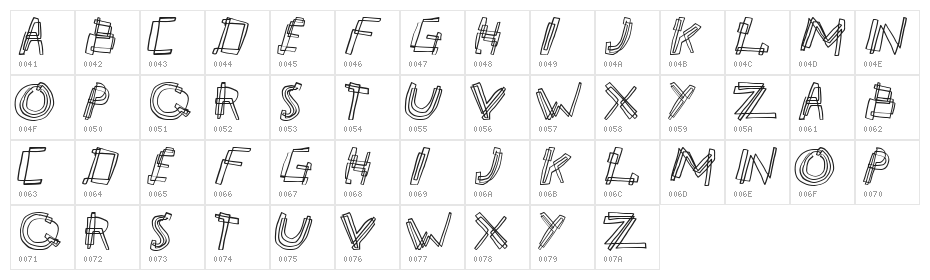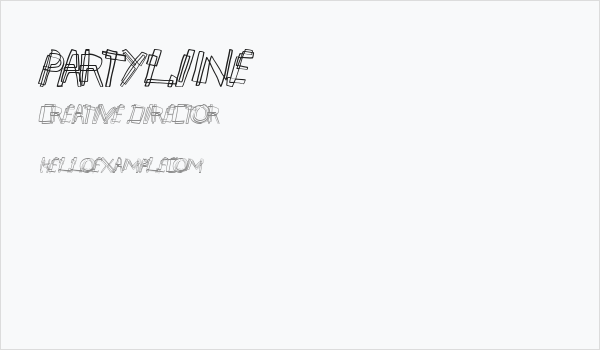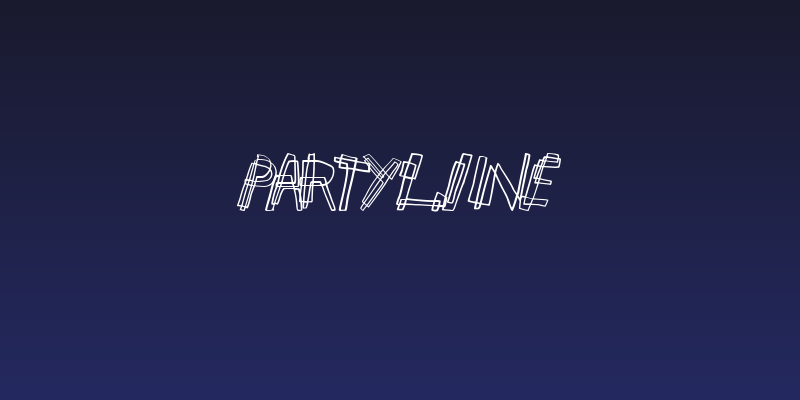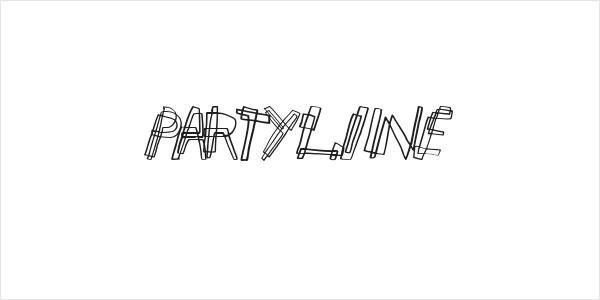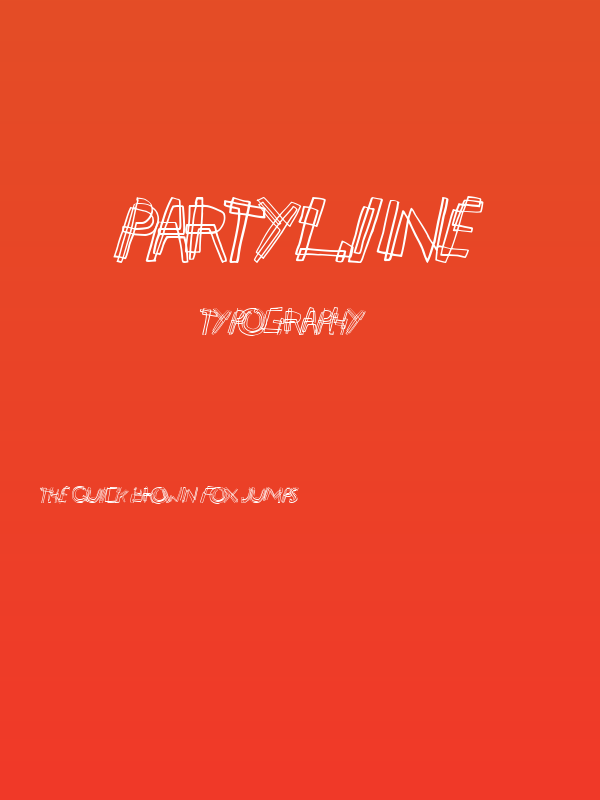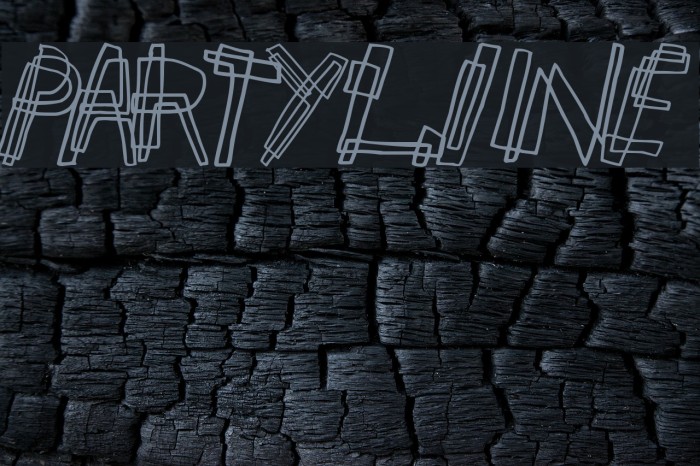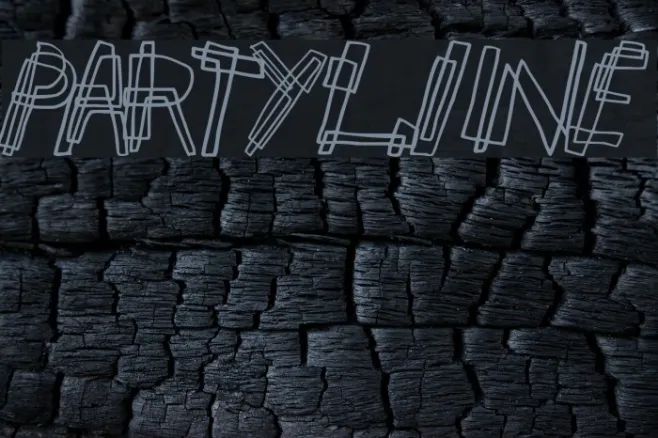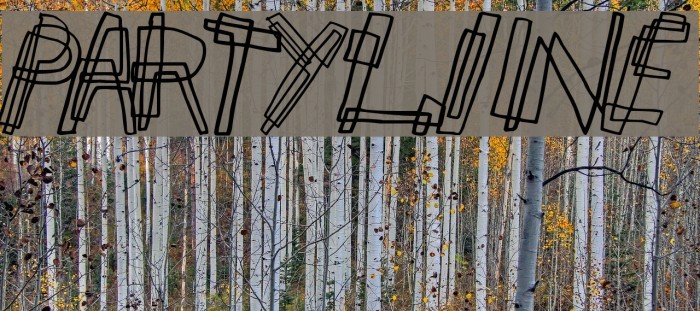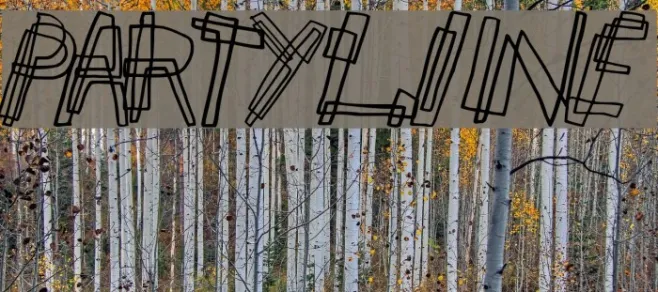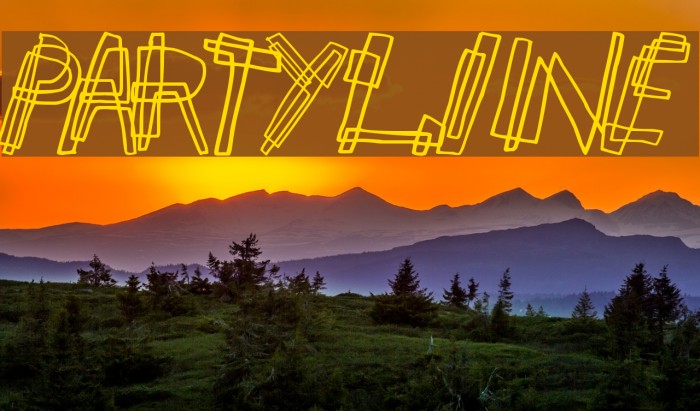
partyline Font
partyline Description
This font features a unique, layered design with a playful and dynamic appearance. Each character is constructed with overlapping lines, creating a sense of depth and movement. The letters are uppercase, with a geometric and slightly irregular form that adds to its whimsical charm. The font's style is reminiscent of a hand-drawn sketch, giving it a casual and artistic feel. The overlapping lines create a shadow effect, enhancing the three-dimensional look. This font is ideal for creative projects that require a bold and eye-catching typeface.
| Proposed Projects | Ideal for party invitations, posters, children's book covers, and creative branding projects. |